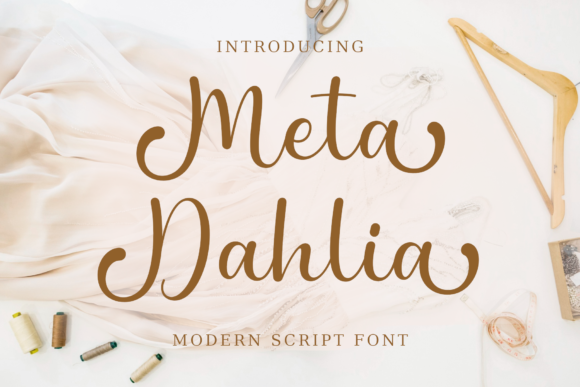
**Indulge in the Enchanting Embrace of Metta Dahlia: A Font that Embodies Elegance and Allure**
Prepare to be mesmerized by the captivating beauty of Metta Dahlia, a script font that will transform your creative endeavors into masterpieces. This stunning typeface possesses an alluring handwritten aesthetic that exudes a timeless charm, making it the perfect choice for a wide range of design projects.
**A Symphony of Grace for Logos and Branding**
Elevate your brand identity to new heights with Metta Dahlia's sophisticated strokes. Its graceful curves and delicate flourishes will imbue your logos, branding materials, and packaging with an air of sophistication and distinction. Whether you're creating a luxurious boutique, a chic fashion label, or a captivating restaurant, Metta Dahlia will lend an unmistakable touch of elegance to your visual identity.
**Invitations and Stationery that Exude Charm**
Unleash the magic of Metta Dahlia for your special occasions. This enchanting font will add a touch of timeless glamour to wedding invitations, save-the-dates, and RSVP cards. Its flowing script will evoke a sense of romance and celebration, ensuring that your guests feel cherished and honored.
**Wedding Designs that Capture the Heart**
Let Metta Dahlia weave its enchantment into your wedding designs. Embrace its graceful strokes to create breathtaking table numbers, seating charts, and menus that reflect the joy and romance of your special day. Its elegant curves will add a touch of ethereal beauty to every element, making your wedding a truly unforgettable affair.
**Social Media Posts that Captivate the Audience**
In the vibrant world of social media, Metta Dahlia shines as a radiant beacon. Its eye-catching script will instantly command attention, captivating your followers with its allure. Use it to craft captivating captions, engaging posts, and stunning graphics that will leave a lasting impression on your online audience.
**Embrace the Allure of Metta Dahlia Today**
Unleash the full potential of your creativity with Metta Dahlia, the font that embodies elegance, grace, and timeless charm. Its versatility extends across a myriad of design projects, ensuring that you can express your unique style in a captivating and unforgettable way.